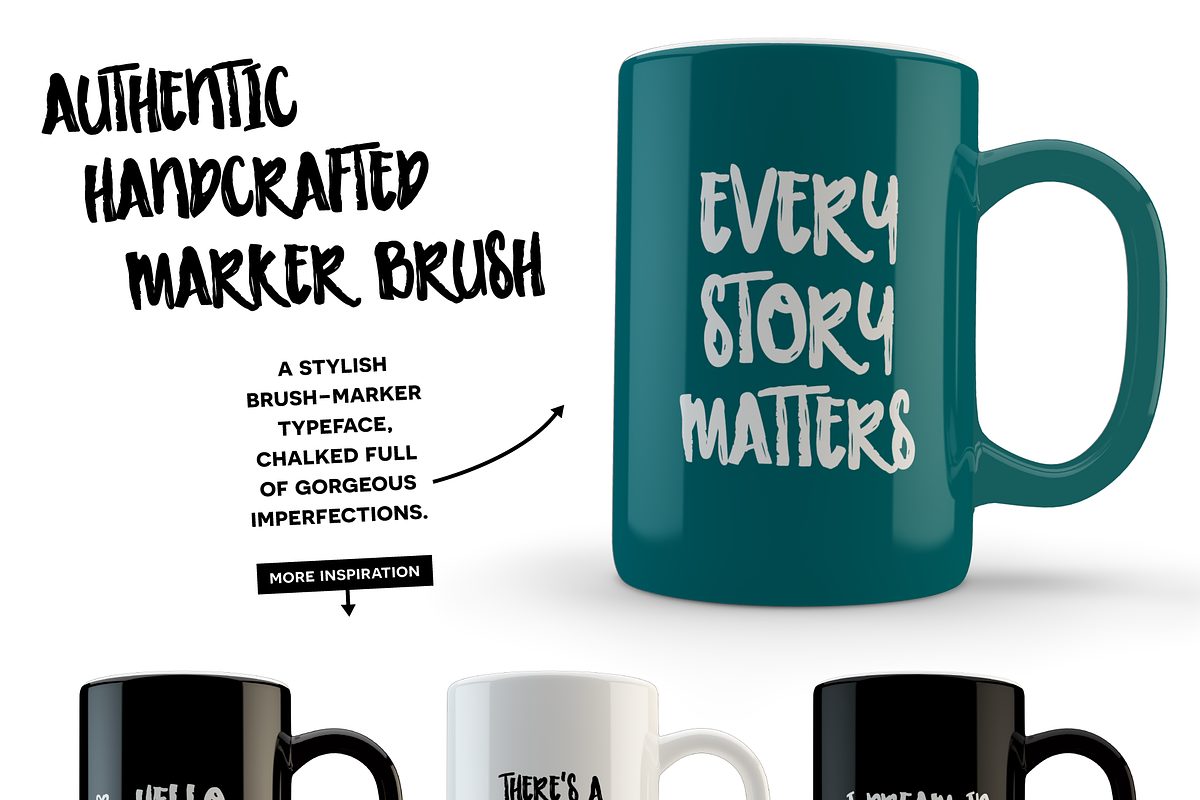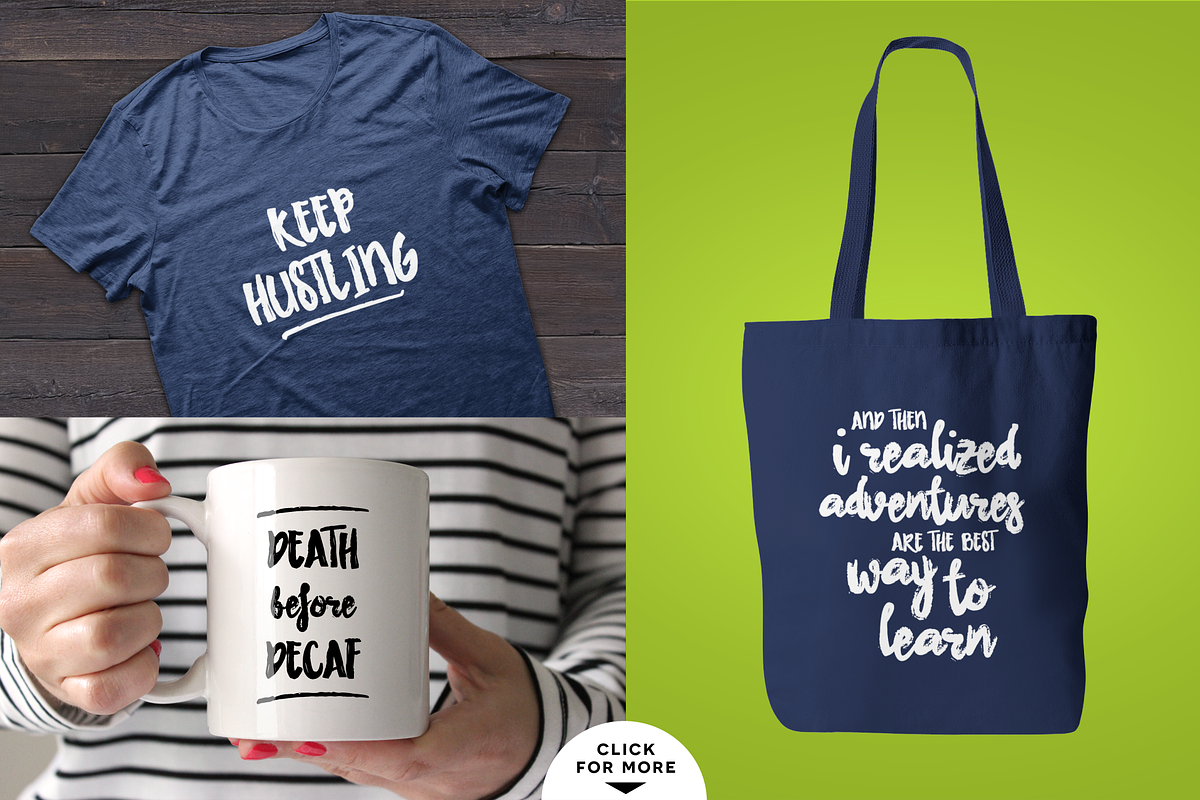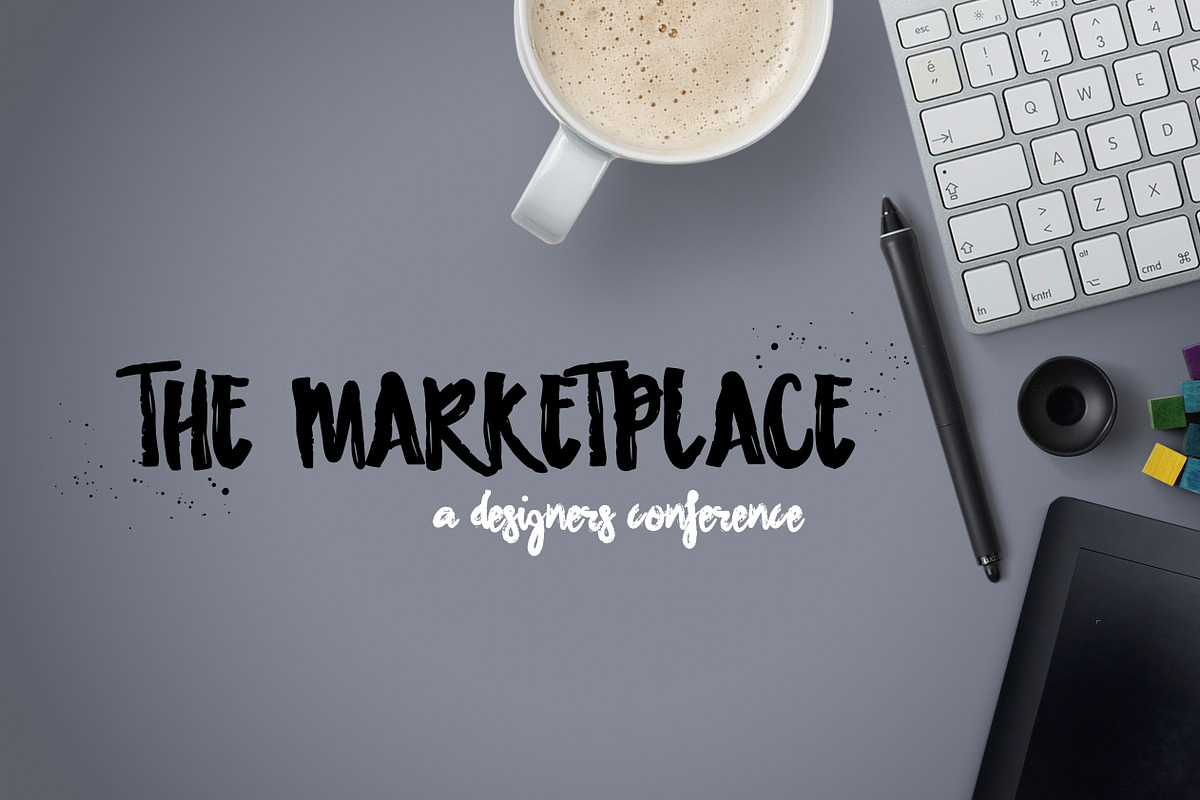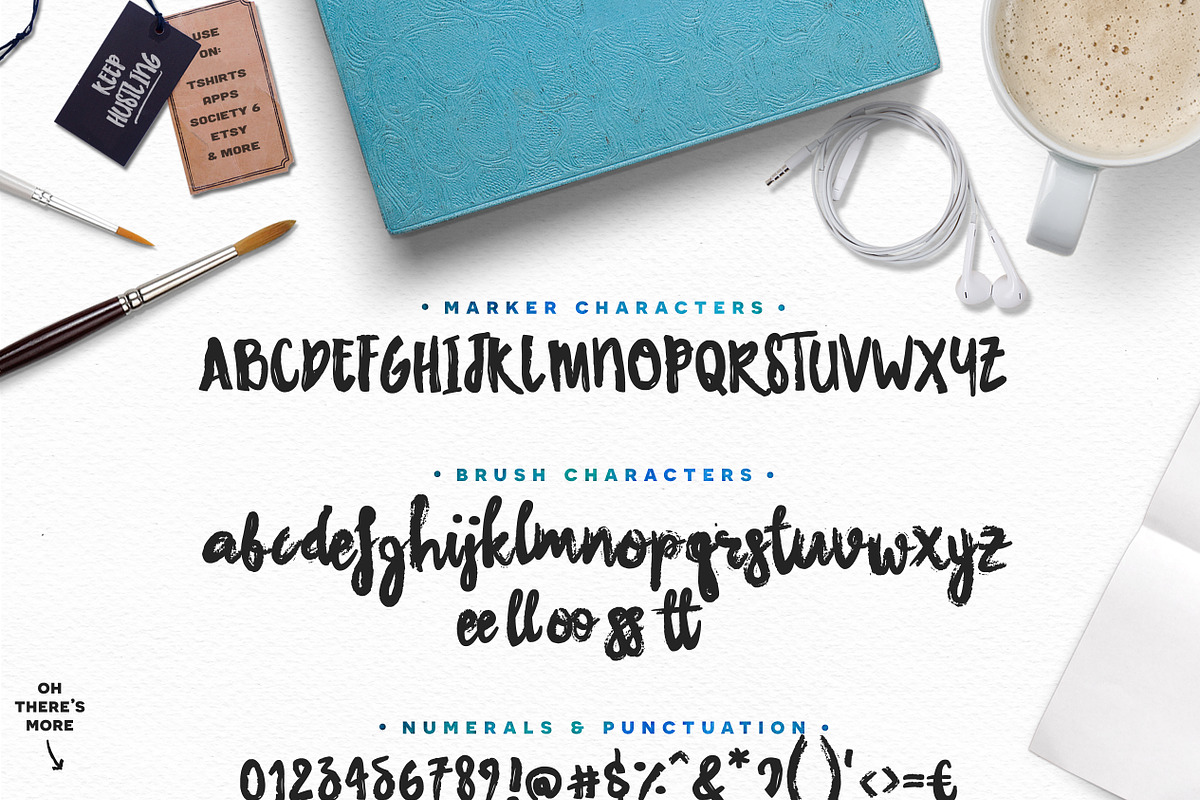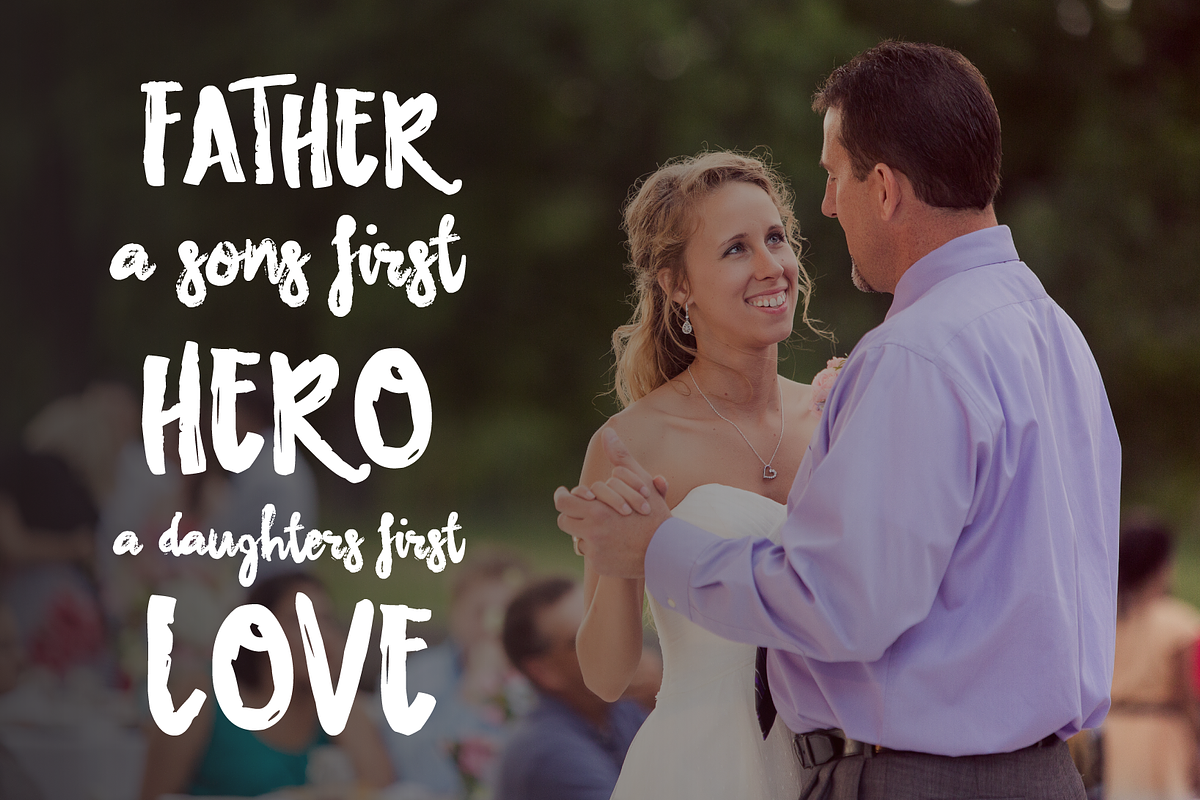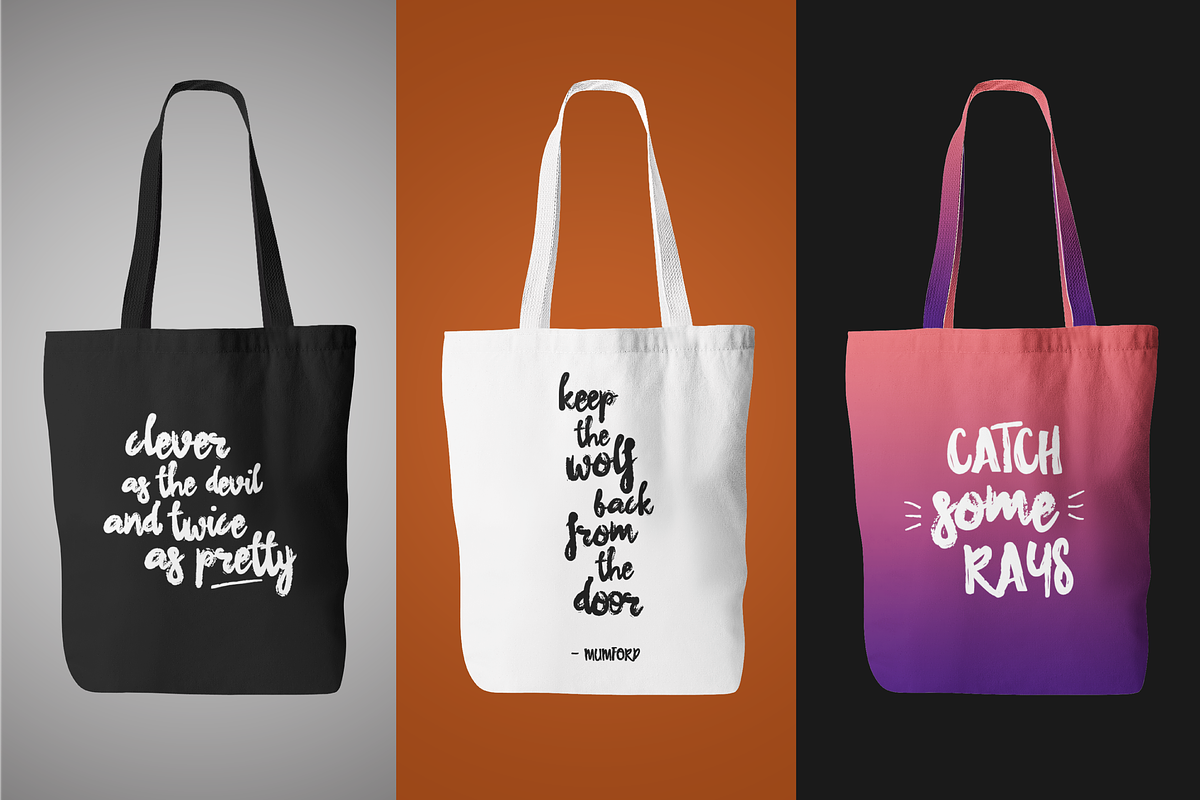
Campfire Stories Font Duo
Campfire Stories Font Duo by Flycatcher Design is a font selected for branding, posters, packaging, typography.
- Included in the pack is 26 marker style swashes in font form for you to give your designs that hand-crafted touch.
- THE FONTS INCLUDED Campfire Stories Regular - a hip marker style sans serif consisting of uppercase only characters.
- Campfire Stories Brush - a roughened and artsy hand-lettered script consisting of all lowercase letters, punctuation and numerals.
- Campfire Stories Swashes - 26 swashes available in two different marker styles accessed by typing upper or lowercase keys.
Why Campfire Stories Font Duo is worth a look
Campfire Stories Font Duo by Flycatcher Design fits naturally into Branding, posters, packaging, typography.